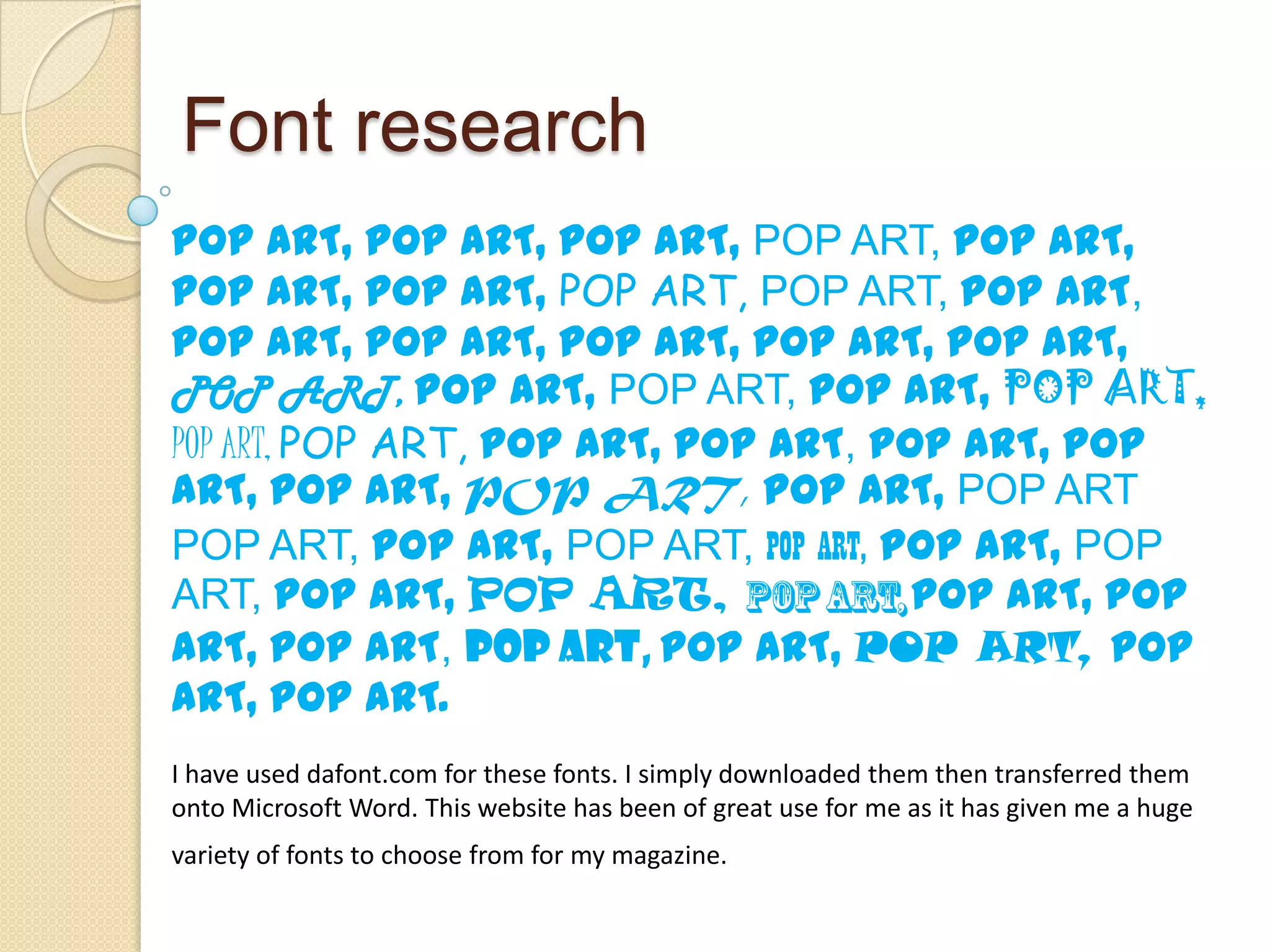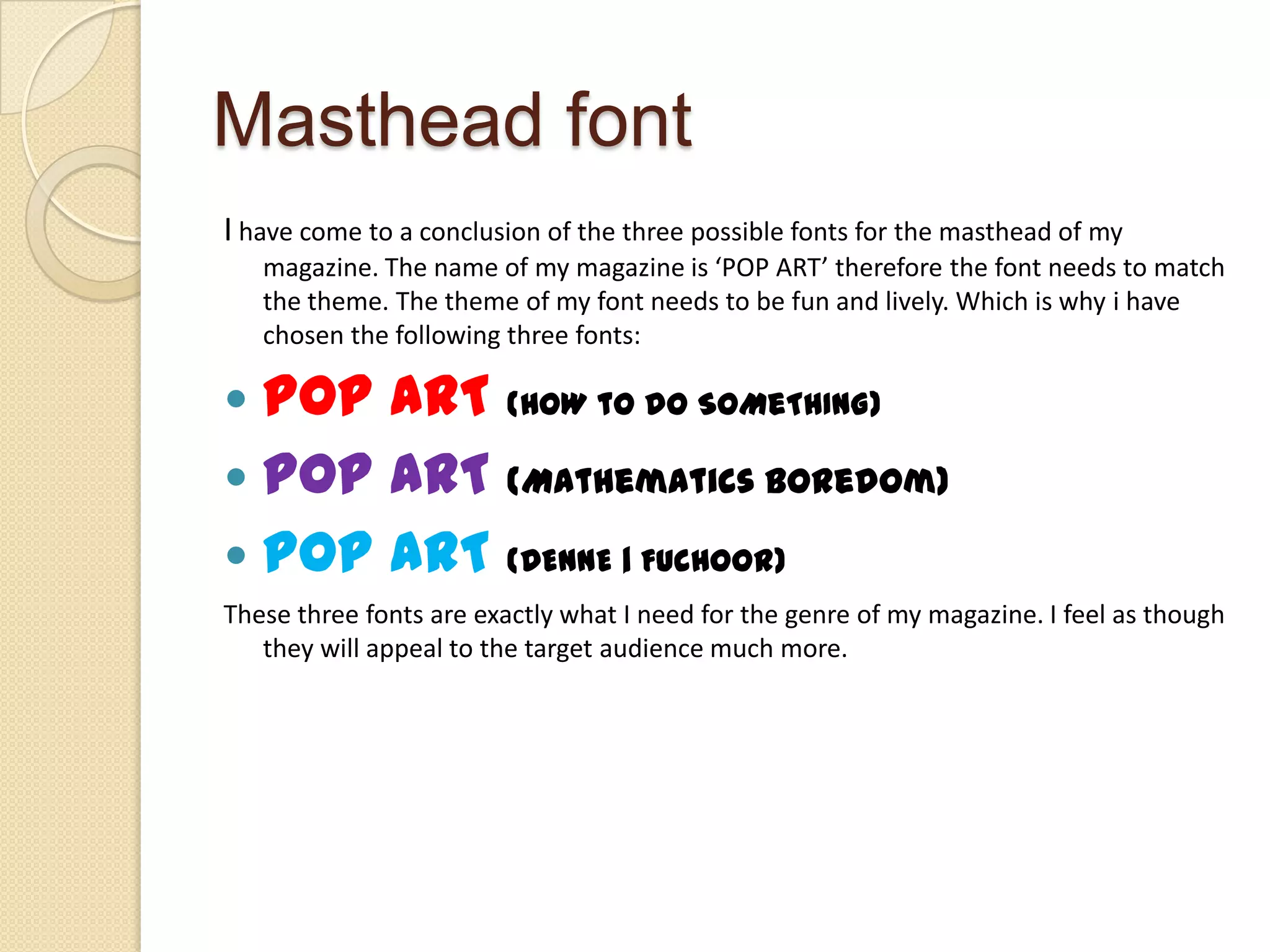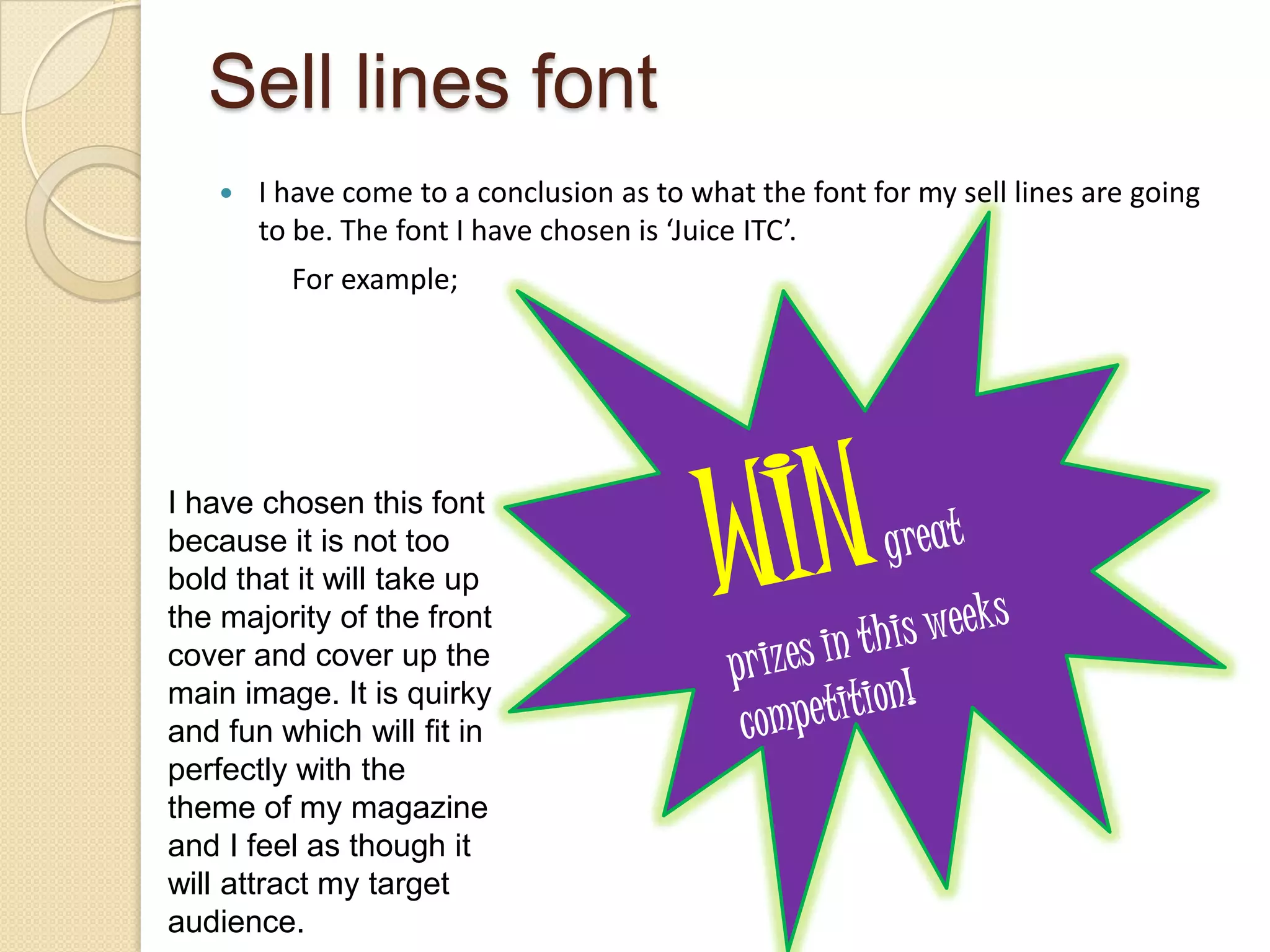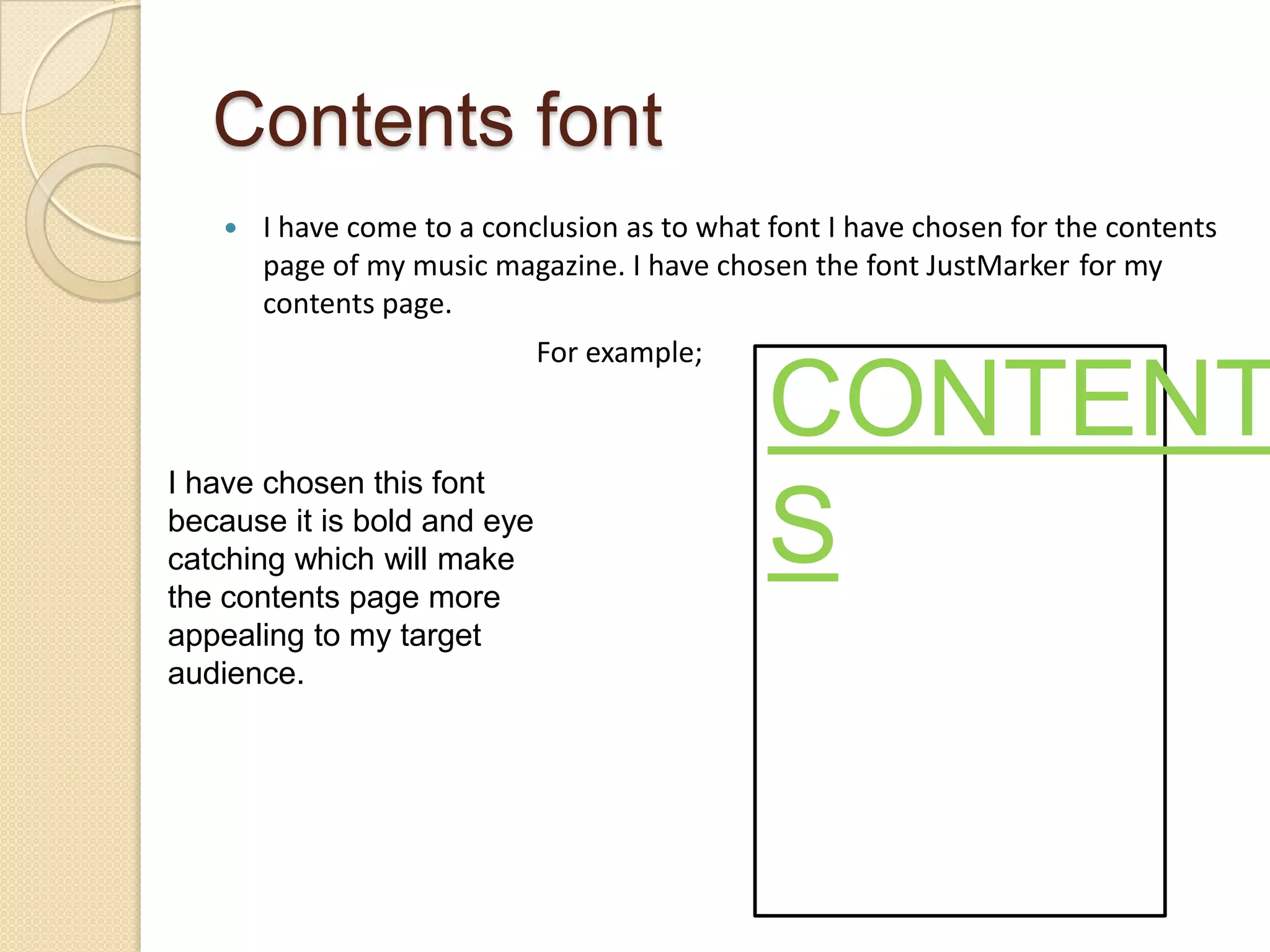
Font research
Masthead font
I have come to a conclusion of the three possible fonts for the masthead of my
magazine. The name of my magazine is ‘POP ART’ therefore the font needs to match
the theme. The theme of my font needs to be fun and lively. Which is why i have
chosen the following three fonts:
 POP ART (HoW tO dO SoMeThInG)
 POP ART (Mathematics Boredom)
 POP ART (DENNE | Fuchoor)
These three fonts are exactly what I need for the genre of my magazine. I feel as though
they will appeal to the target audience much more.
Sell lines font
   I have come to a conclusion as to what the font for my sell lines are going
to be. The font I have chosen is ‘Juice ITC’.
For example;
I have chosen this font
because it is not too
bold that it will take up
the majority of the front
cover and cover up the
main image. It is quirky
and fun which will fit in
perfectly with the
theme of my magazine
and I feel as though it
will attract my target
audience.
Contents font
   I have come to a conclusion as to what font I have chosen for the contents
page of my music magazine. I have chosen the font JustMarker for my
contents page.
For example;
CONTENT
I have chosen this font
because it is bold and eye
catching which will make
the contents page more
S
appealing to my target
audience.